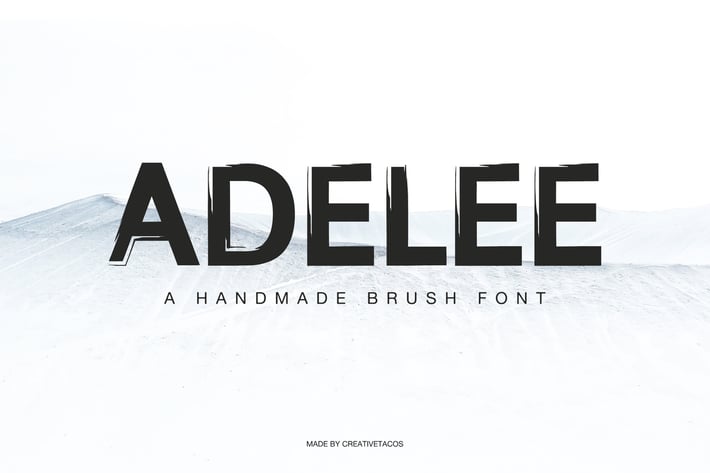
Adelee Brush Font
Adelee is a stylish, charming and attractive font which will give you an extraordinary experience in your future design project that you wish to create! It contains uppercase, lowercase, number, punctuation and symbols. Adelee font will be perfect for packaging, presentations, logo, headlines, lettering, posters, branding, quotes, titles, magazines headings, web layouts, advertising, invitations, packaging design, books, and nearly any creative design.